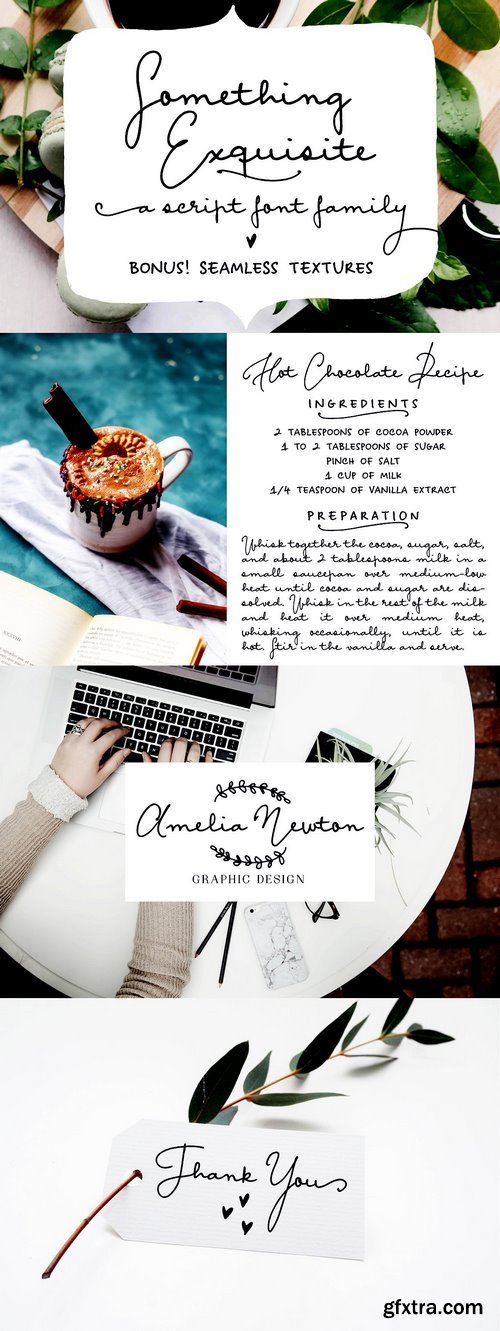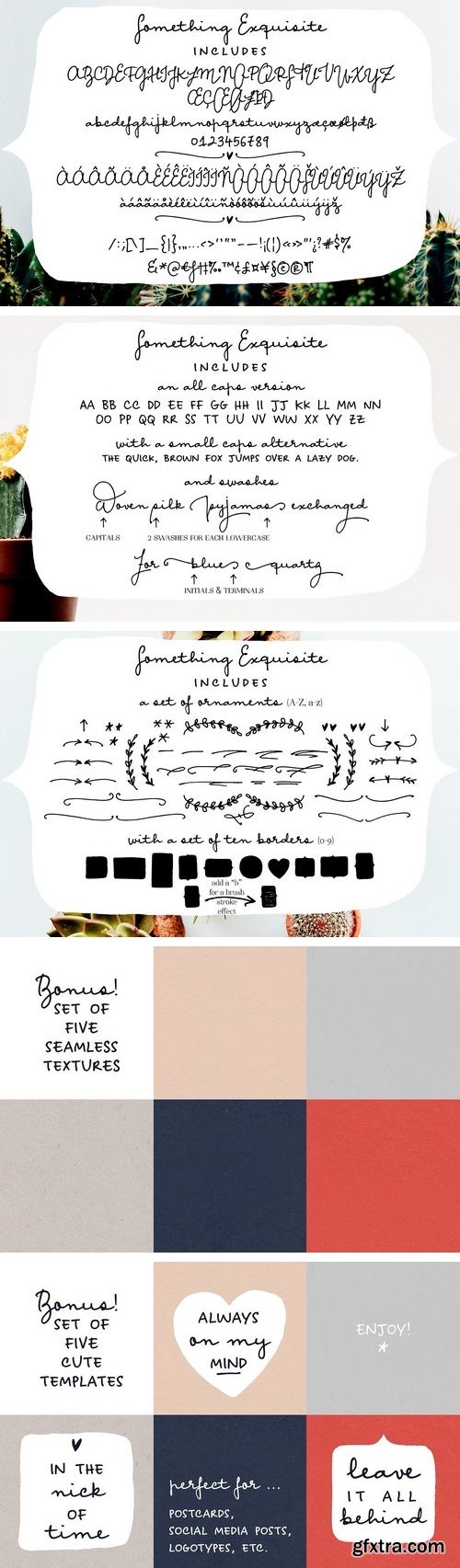
CM - Something Exquisite | a script font 2091612
Something Exquisite is perfect for both short and longer texts, and can be used for making postcards and notes, creating logotypes, social media posts, branding and packaging.